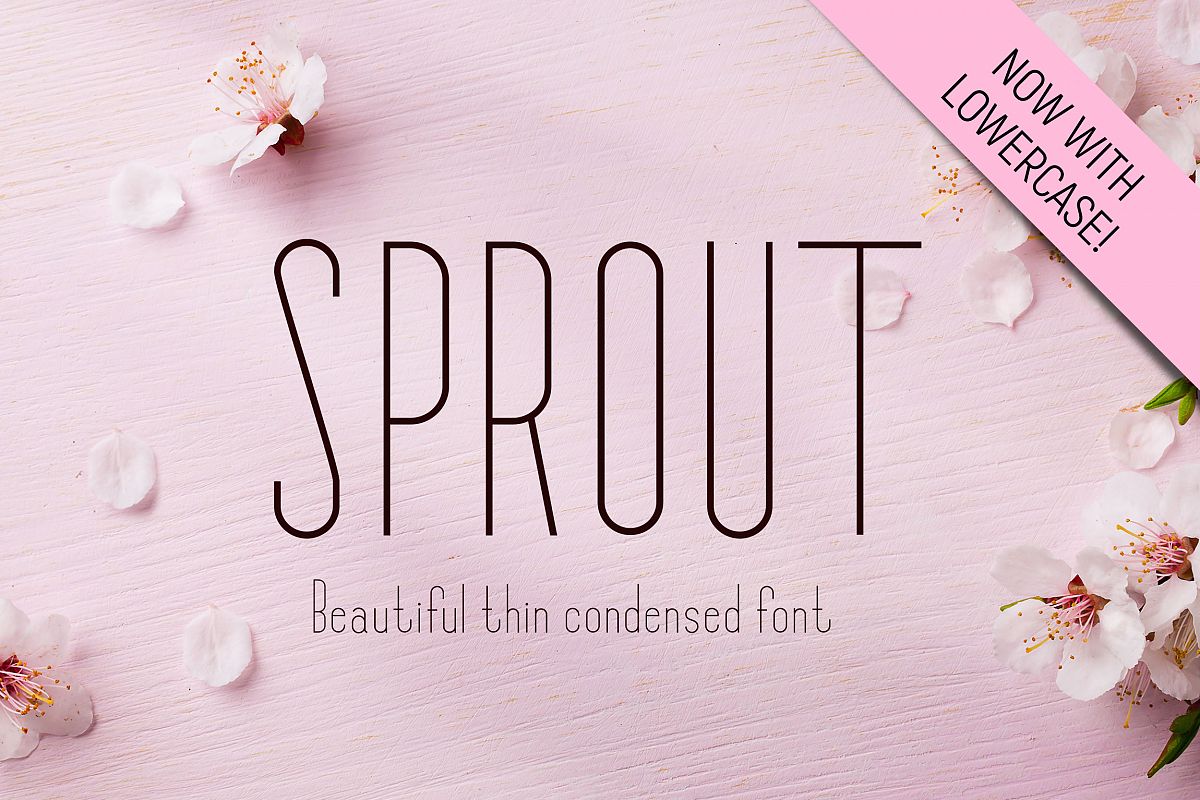
Introducing: Sprout! A beautiful and delicate Thin Condensed Sans Serif font perfect for crafting all your wedding designs. It's also perfect for that feminine and delicate look that you want in your invitations, wedding albums, website, etc.
- Uppercase & Lowercase font